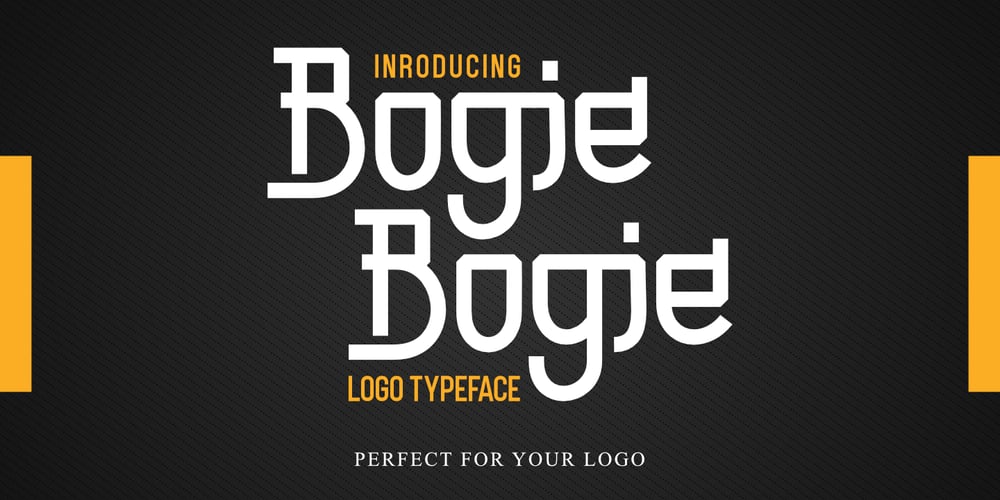
Bogie Bogie Font Family was designed by Toni Dzulham and published by Dumadi. Bogie Bogie contains 1 styles and family package options. Bogie Bogie – Logo Typeface A special font for the company logo and the logo of the project you are working on will certainly make it easier to create a logo. so for those of you who are still starting a business, this font will be very suitable for your identity and you will not bother anymore to create a logo.Bogie Bogie is perfect for logo designs, electronic logos, drone logos, smartphone logos, computer brand logos, camera logos, and other logo logos.What’s Included :+ Standard glyphs+ Multilingual Accent+ Works on PC & Mac, Simple installationsAccessible in Adobe Illustrator, Adobe Photoshop, Adobe InDesign, even work on Microsoft Word. PUA Encoded Characters – Fully accessible without additional design software. Fonts include multilingual support+ Image used: All photographs/pictures/vectors used in the preview are not included, they are intended for illustration purposes only.Thanks